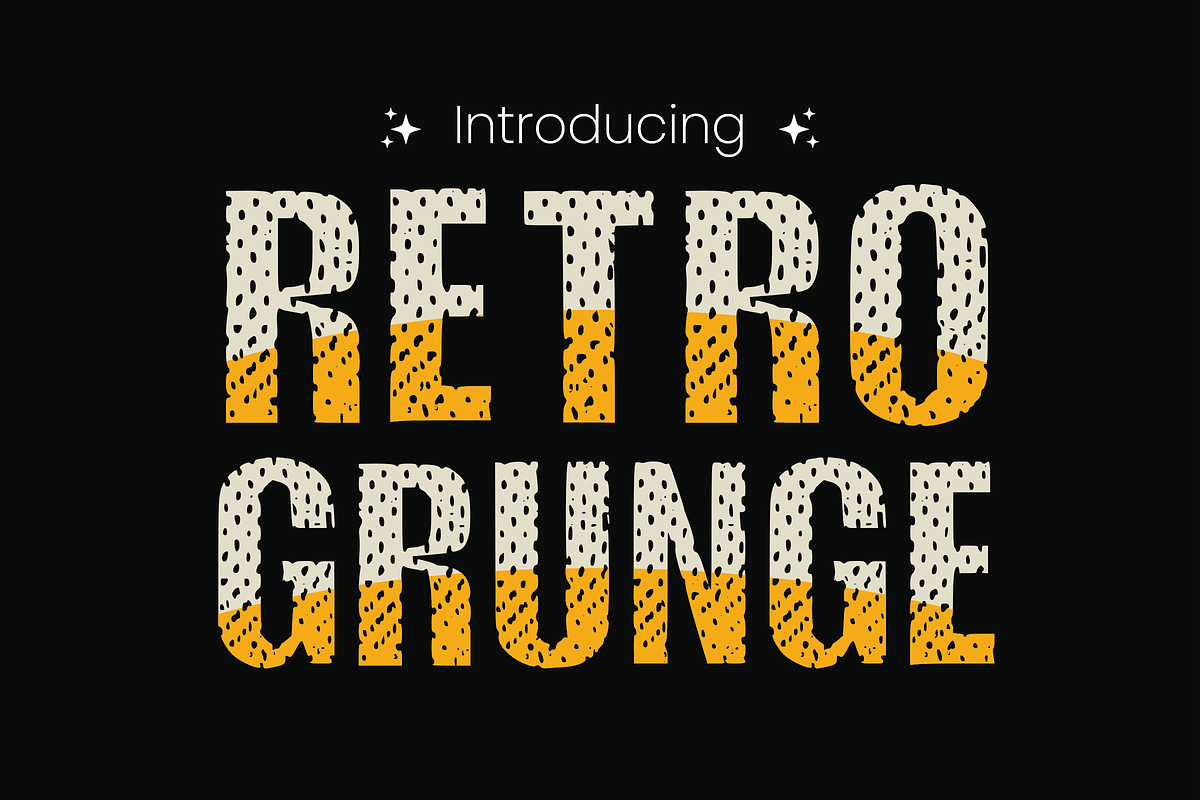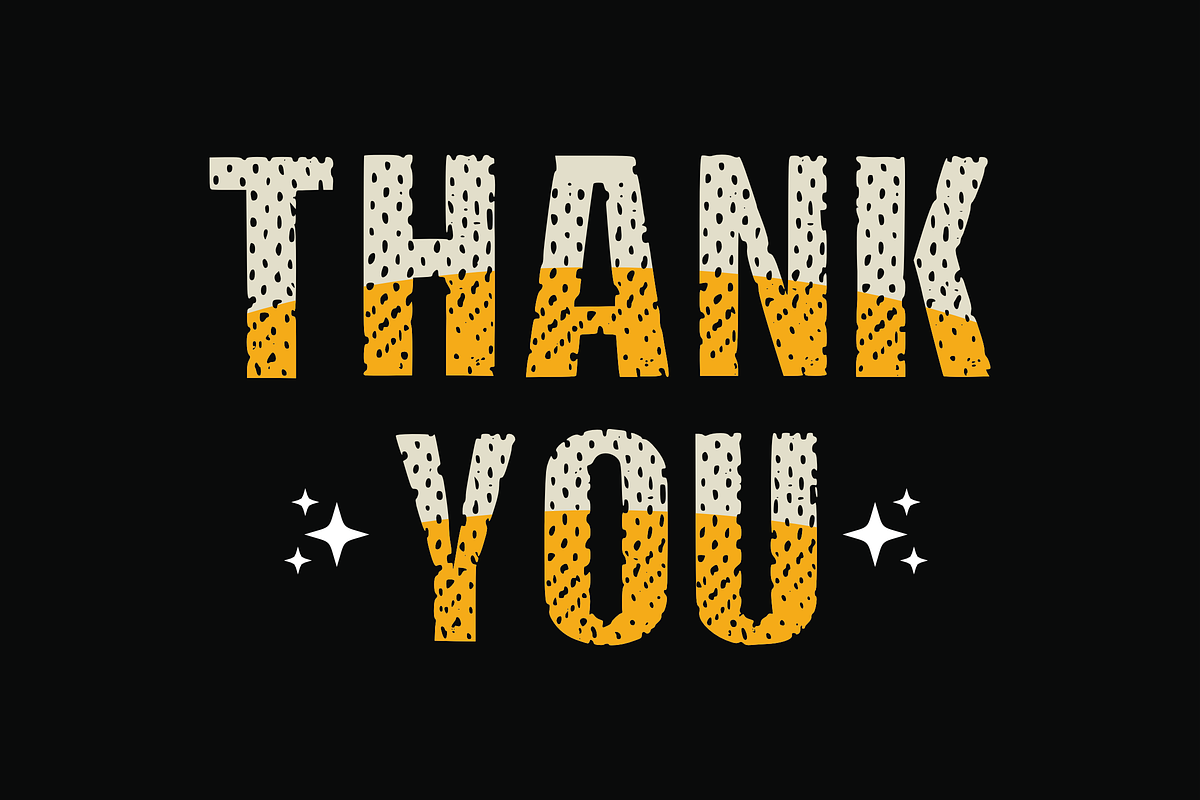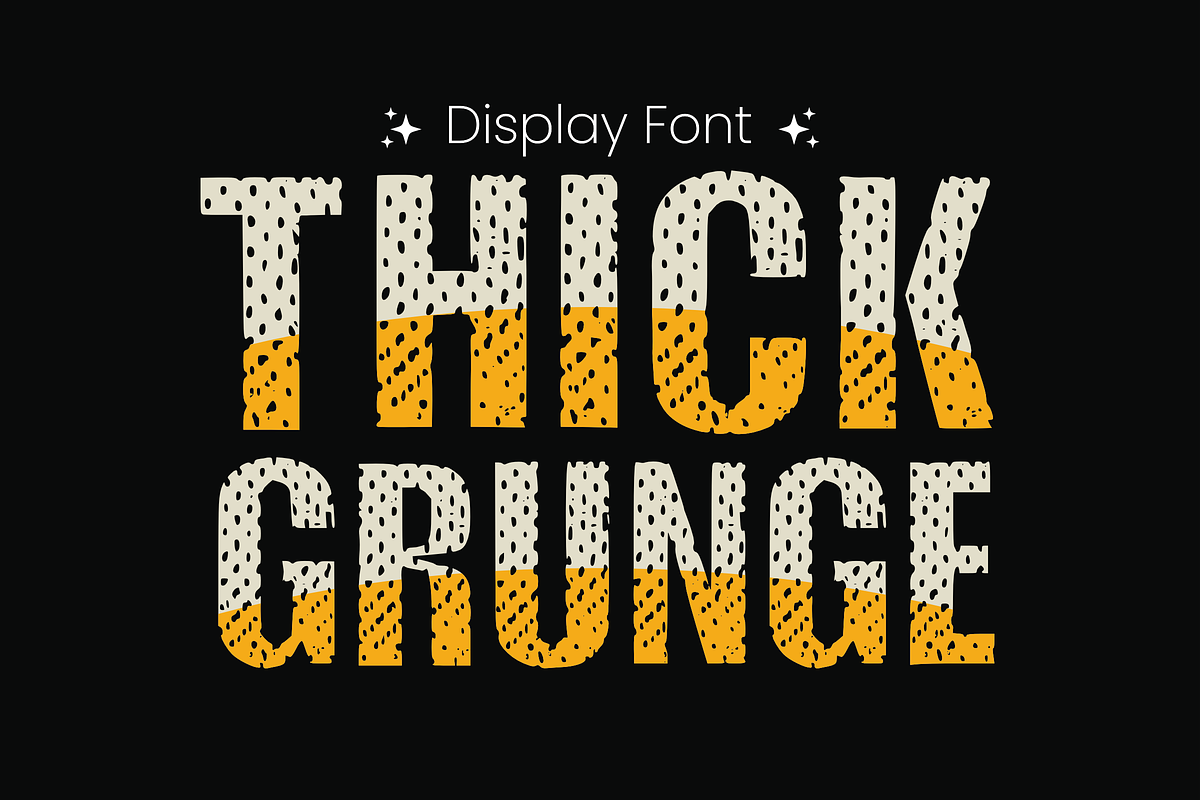
Retro Grunge - Jenis Huruf Grunge
Step back in time with “Retro Grunge”, a vintage-style font that conjures memories of yesteryears. Brimming with character, each letter sports distinctive, decorative dots, adding an extra layer of charm. This creative old school typeface is the perfect match for comic book headlines, jovial birthday banners or retro-themed food branding. It also shines brightly in sublimation techniques and on printed merchandise such as T-shirts and mugs. Retro Grunge breathes life into any design, stirring a nostalgic sense in every word it styles.